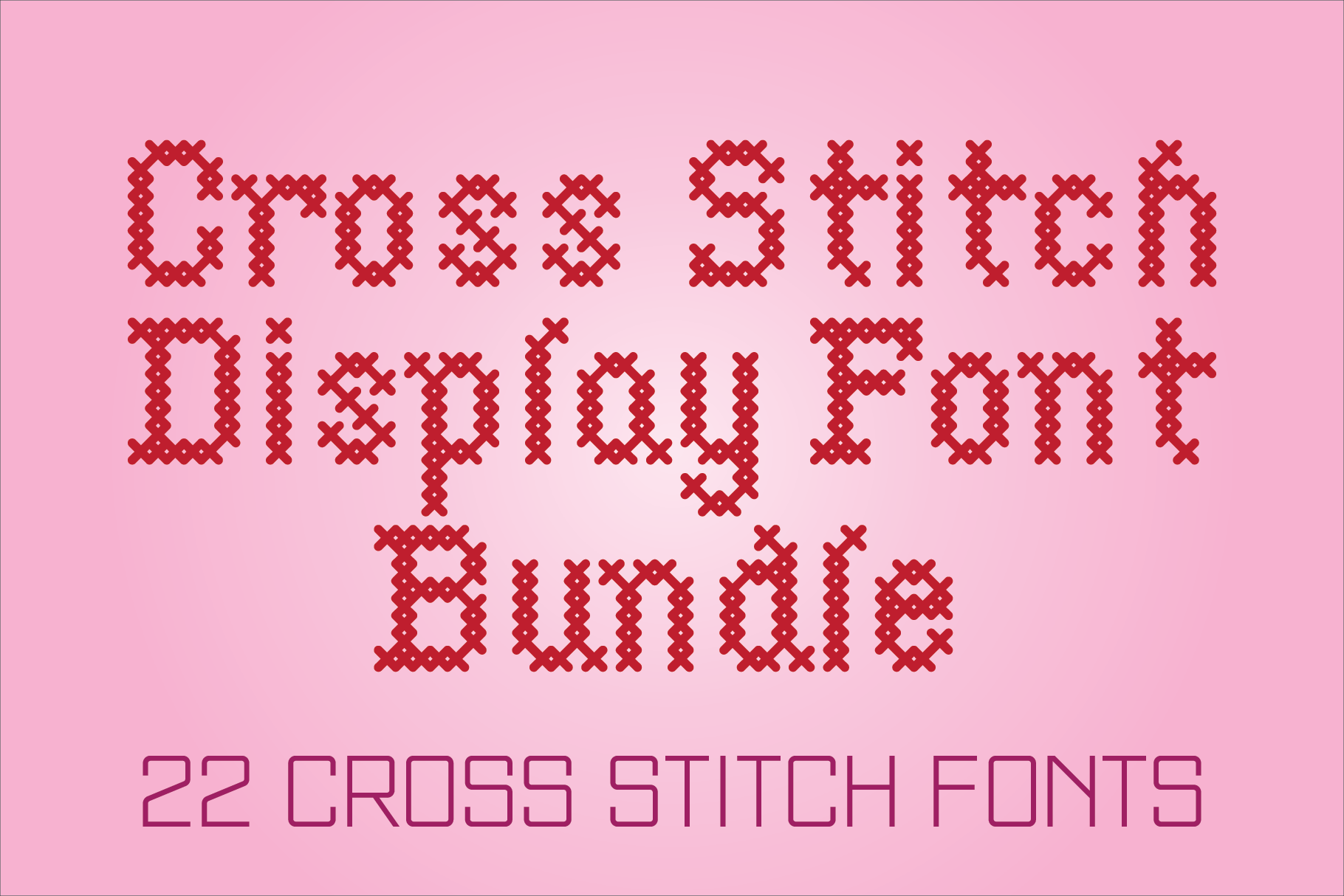
Cross Stitch Display Font Bundle
The Cross Stitch Display Fonts are for creating designs with letters that appear to be cross stitched for posters, art prints, signage or anything that cross stitched lettering would enhance.
Cross Stitch Basic is based on upper case characters 7 stitches tall and contains the upper case characters A-Z, lower case characters a-z, numbers 0-9, ampersand, exclamation and question marks, comma, period, colon, and semi-colon.
Cross Stitch Brazen is based on upper case characters 13 stitches tall and contains the upper case characters A-Z, ampersand, question and exclamation marks, bullet, comma, and period.
Cross Stitch Carefree is based on upper case characters 10 stitches tall and contains the characters A-Z and period. Several characters extend above the capital line or below the base line.
Cross Stitch Classic is based on upper case characters 12 stitches tall and contains uppercase characters A-Z, lowercase characters a-z, numbers 0-9, ampersand, exclamation and question marks, comma, period, apostrophe, single quotes, double quotes, dollar sign, pound sign and euro sign.
Cross Stitch Coarse is based on upper case characters 5 stitches tall and contains the upper case characters A-Z, numbers 0-9, ampersand, exclamation and question marks, comma, and period. Also, under the character set are all possible combinations of stitches 5 high from 1 through 5, which allows for the creation of custom glyphs. If the font is set at solid leading, lines following will align and mesh with stitches above. When setting lines of copy, extra leading is required to separate individual lines.
Cross Stitch Cursive is based on upper case characters 16 stitches tall and contains the upper case characters A-Z, lower case characters a-z, small numbers 0-9, ampersand, exclamation and question marks, comma, and period.
Cross Stitch Delicate is based on upper case characters 21 stitches tall and contains the characters A-Z and numbers 0-9.
Cross Stitch Diamond Monogram is a 25 stitch tall 3-letter diamond monogram. The letter representing the first name is on the left and is located under the character set. The letter representing the surname is in the center and is located under the shift + character set. The letter representing the middle name is on the right and is located under the option + character set.
Cross Stitch Discreet is based on upper case characters 16 stitches tall and contains upper case characters A-Z, ampersand, exclamation and question marks, comma, period, colon, and semi-colon.
Cross Stitch Elaborate is based on upper case characters 25 stitches tall. It is not intended for text use. It was designed specifically for use as fancy monograms or initials. Cross Stitch Elaborate has an uppercase alphabet.
Cross Stitch Formal is based on upper case characters 20 stitches tall and contains upper case characters A-Z. All characters are linked by at least one stitch.
Cross Stitch Gothic is not intended for text use. It was designed for use as fancy monograms or initials. Cross Stitch Gothic is based on upper case characters 28 stitches tall and contains the characters A-Z. Most characters extend above the capital line or below the base line.
Cross Stitch Graceful is not intended for text use. It was designed specifically for use as fancy monograms or initials. Cross Stitch Graceful has an uppercase alphabet, 48 stitches tall.
Cross Stitch Majestic is not intended for text use. It was designed specifically for use as fancy monograms or initials. Cross Stitch Majestic has an uppercase alphabet, 33 stitches tall.
Cross Stitch Medieval is not intended for text use. It was designed specifically for use as fancy monograms or initials. Cross Stitch Medieval has an uppercase alphabet, 9 stitches tall.
Cross Stitch Monogram is based on upper case characters 15 stitches tall and contains the upper case characters A-Z, numbers 0-9, ampersand, and a selection of various simple ornaments.
Cross Stitch Noble is based on upper case characters 43 stitches tall and contains the characters A-Z and period.
Cross Stitch Ornaments is a collection of classic stitched geometric shapes, plants, birds, and animals. There is an assortment of 47 ornaments located under the character set keys. All ornaments that are asymmetrical have a flopped version located under the shift+character key.
Cross Stitch Regal is based on upper case characters 25 stitches tall and contains upper case characters A-Z, ampersand, exclamation and question marks, comma, period, colon, and semi-colon.
Cross Stitch Simple is based on upper case characters 8 stitches tall and contains upper case characters A-Z, lower case characters a-z, numbers 0-9, ampersand, exclamation and question marks, comma, period, colon, and semi-colon.
Cross Stitch Solid is based on upper case characters 14 stitches tall and contains upper case characters A-Z, numbers 0-9, ampersand, comma and period.
Cross Stitch Splendid is based on upper case characters 23 stitches tall and contains the upper case characters A-Z.